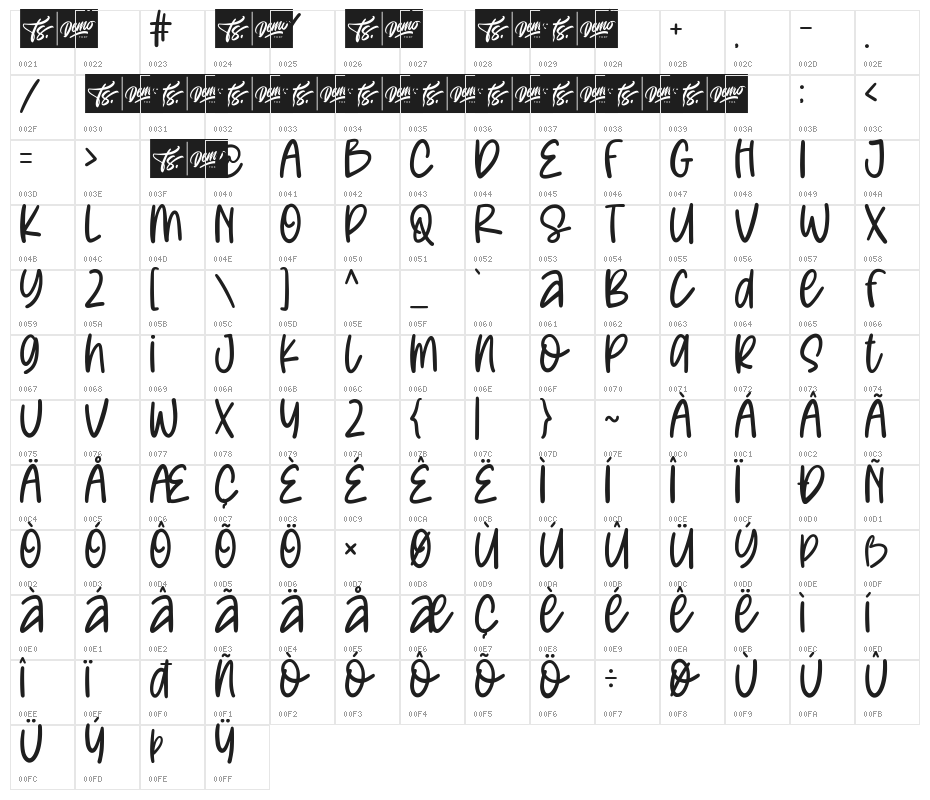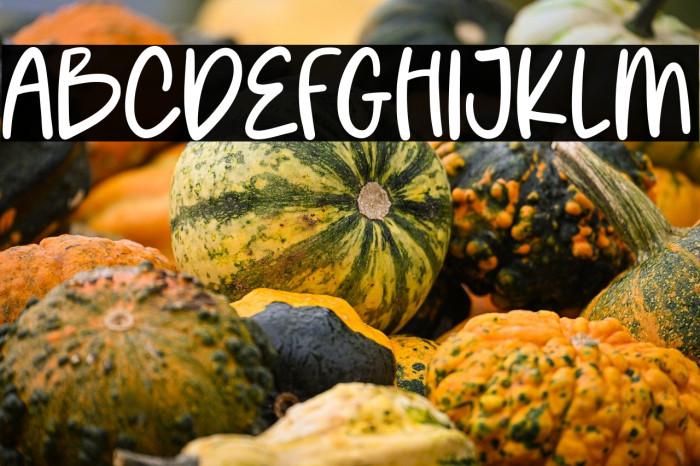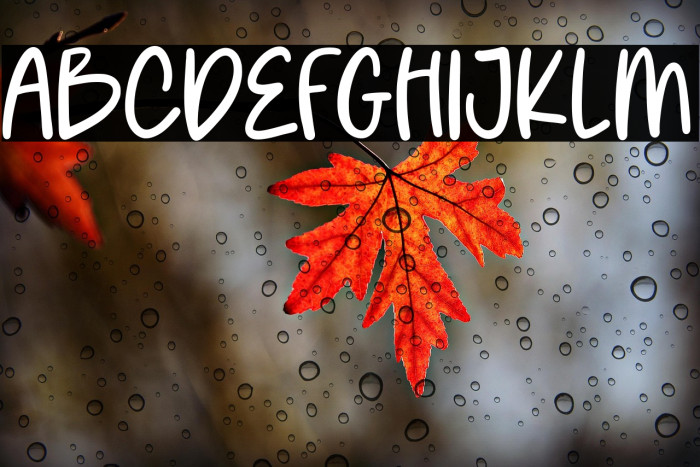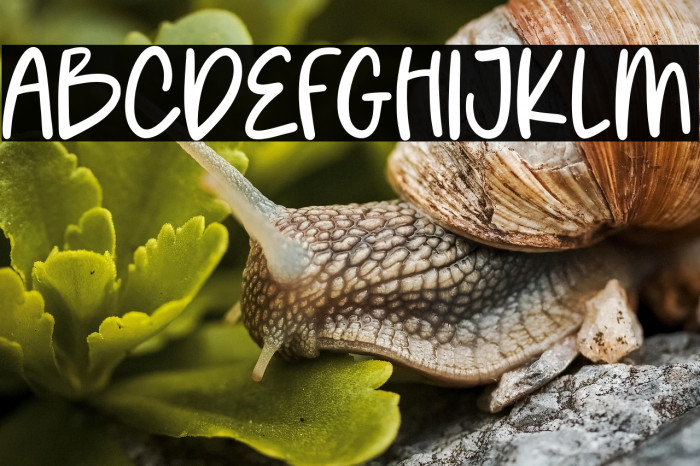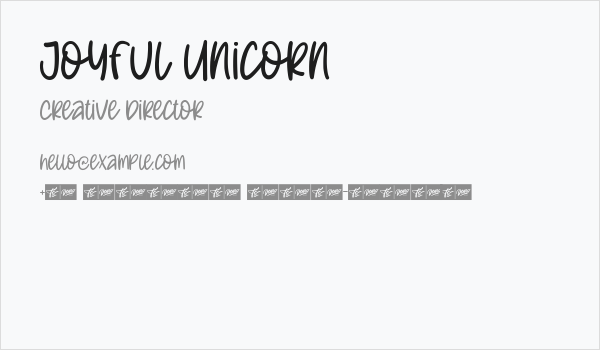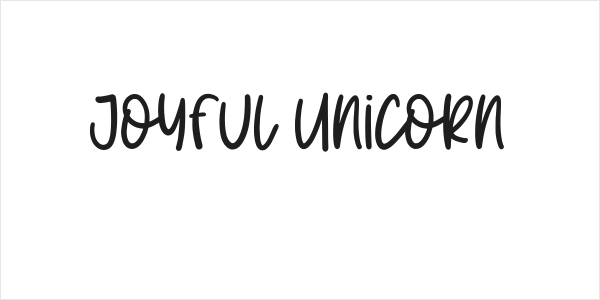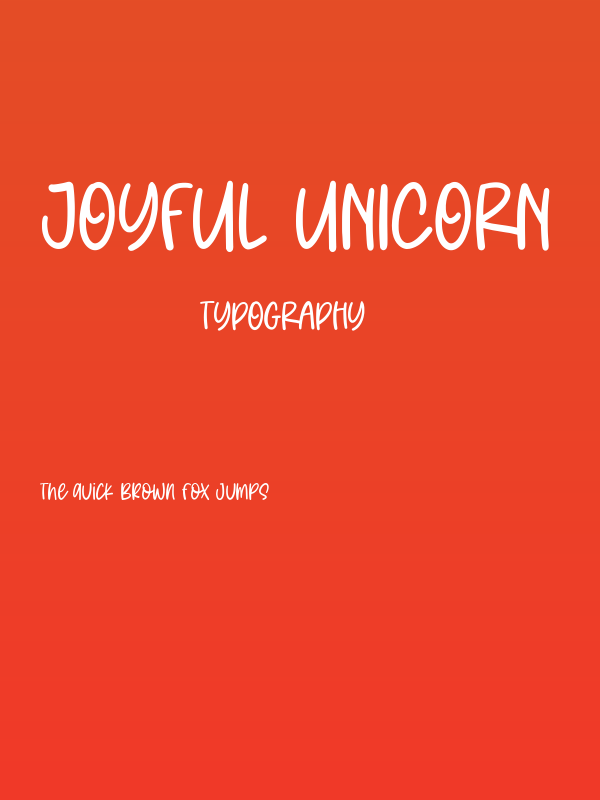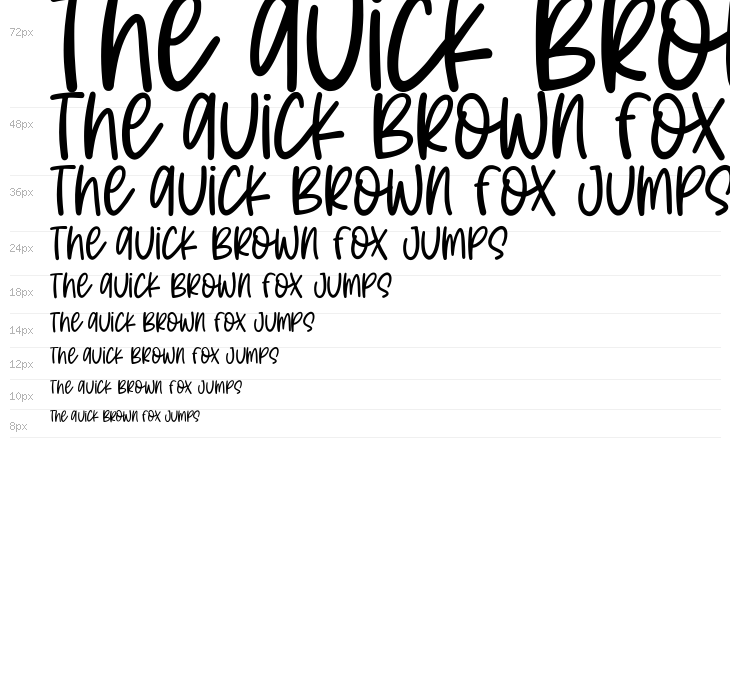
Joyful Unicorn Font
Joyful Unicorn Description
This font is a lively and playful handwritten style that exudes a sense of joy and creativity. The letters are bold and rounded, with a smooth flow that mimics natural handwriting. Each character is distinct, yet they all maintain a cohesive look that makes the text easy to read. The uppercase and lowercase letters are well-balanced, and the numbers and special characters are designed to match the overall aesthetic. This font is perfect for projects that require a personal touch, such as greeting cards, invitations, and creative branding.
| Overall Style | Playful, Creative |
| Proposed Projects | Ideal for greeting cards, invitations, creative branding, and playful designs. |